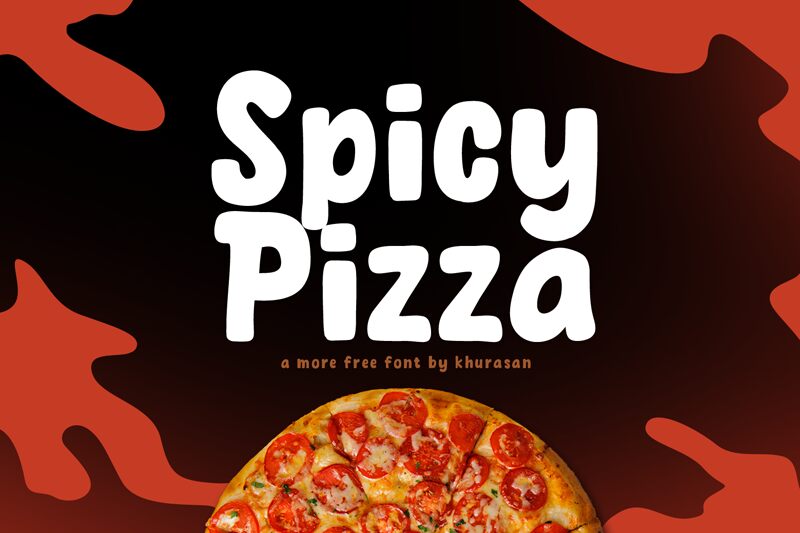
Spicy Pizza
Spicy Pizza, designed by Khurasan, is a vibrant display font that adds a playful touch to any project.
With its semi-light weight and cartoon-style design, this font is perfect for children's book covers, party invitations, and bakery logos. Its bold and cheerful characters bring life to menus at family-friendly restaurants and can also be used for greeting cards or posters promoting fun events like carnivals or amusement parks. Whether you're looking to add a dash of whimsy or create a memorable brand identity, Spicy Pizza is the flavorful choice.